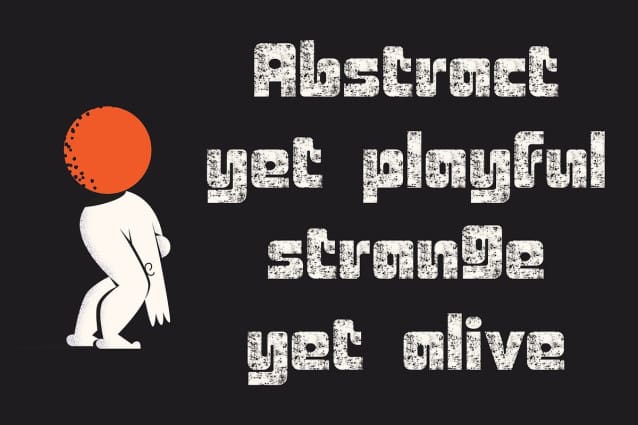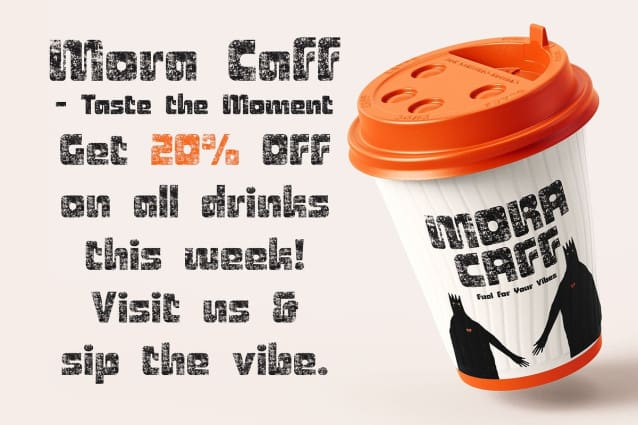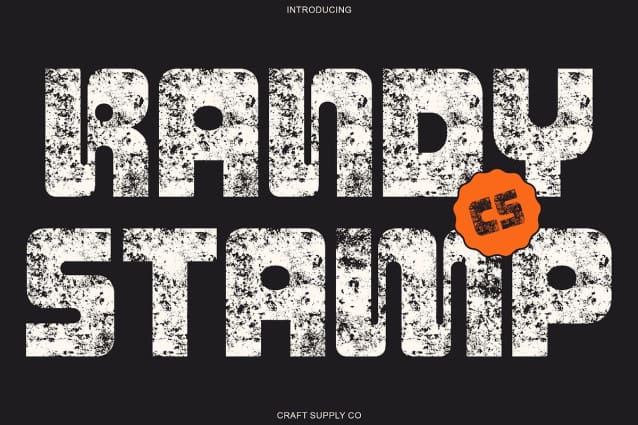
CS Randy Stamp Font
CS Randy Stamp Font : Bold Strength with Vintage Soul.Bold Display Font with Stamp Texture This is a bold display font that commands attention with its strong weight and powerful presence. Combining futuristic design elements with smooth, curving corners, this typeface brings a fresh, modern energy to any project. The addition of a subtle stamp texture adds a vintage twist, creating a unique contrast between modern sharpness and timeless character.
Futuristic Form with Striking Curves Built to impress, this font features bold, geometric shapes refined with elegant curves. The result is a display typeface that feels both forward-thinking and approachable ideal for designers who want to balance power with style.
Stamp Texture for Authentic Vintage Appeal The textured stamp effect enhances the font’s bold structure with a handcrafted, nostalgic touch. Each letter carries an organic, worn feel that evokes the charm of traditional printing. This vintage texture transforms this from from a sleek display font into a statement piece full of depth, warmth, and authenticity.
Perfect for Impactful Design Applications This font thrives in bold, attention-grabbing layouts such as posters, headlines, logos, and strong branding concepts. Its combination of futuristic form and vintage texture makes it versatile for both modern and retro-inspired projects. Whether you’re designing for fashion, music, or lifestyle brands, delivers strength, style, and unforgettable visual impact.